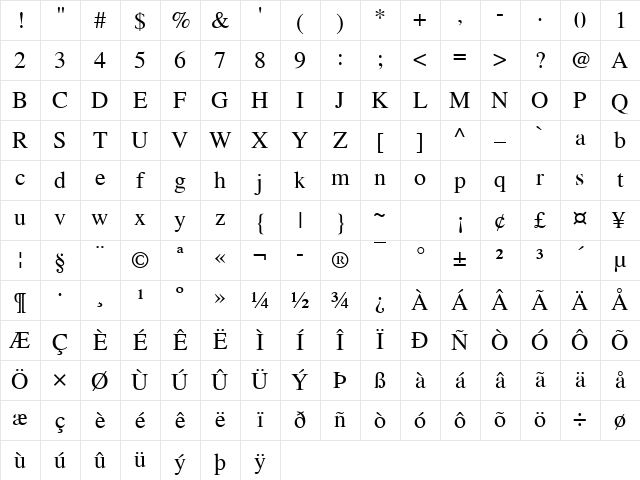
Nimbus Roman Becker No9L Regular
Design Context for Nimbus Roman Becker No9L
Nimbus Roman Becker No9L is a composed and adaptable typeface that performs quietly and consistently across a wide range of design contexts.
Pro Tip: Use Nimbus Roman Becker No9L in both headline and body roles to test its range before committing to a single application.